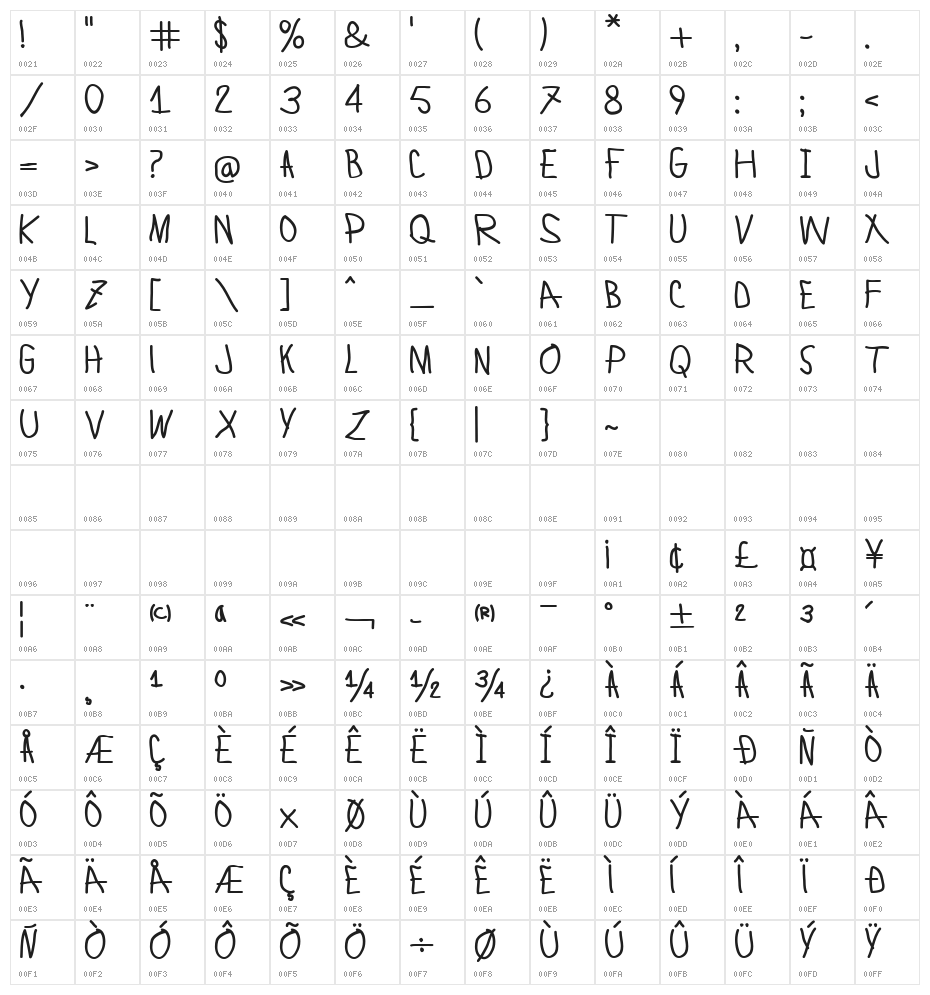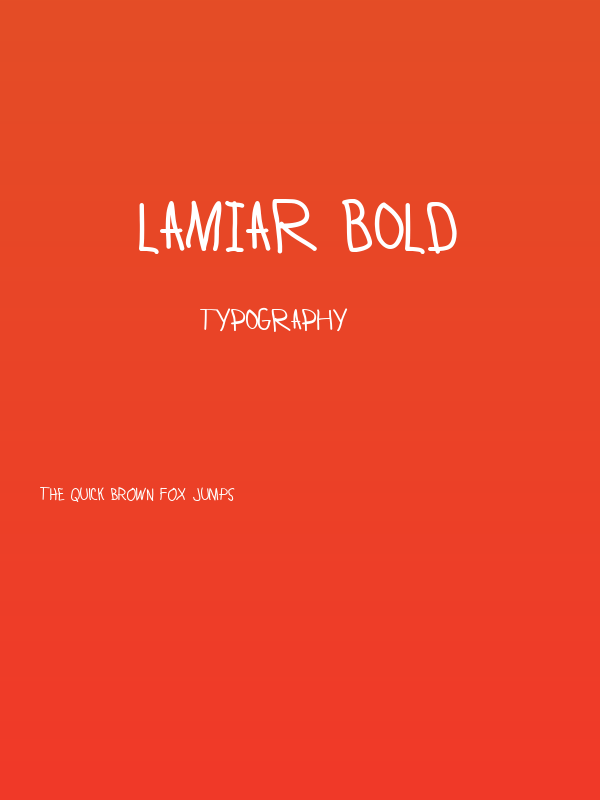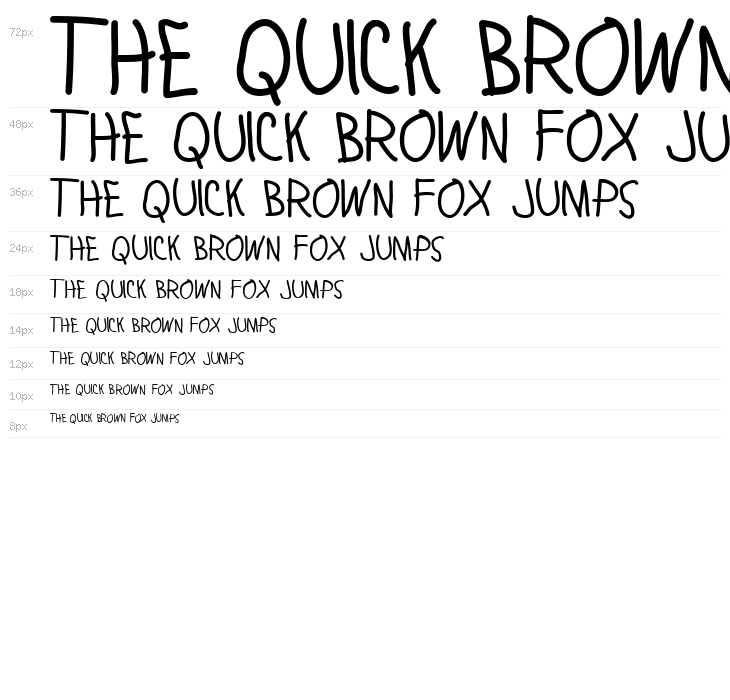
Lamiar Bold Font
| Stile generale | Playful, Casual |
| Caso d'uso | Headlines, Logos, Informal Text |
| Progetti proposti | Ideal for children's books, greeting cards, creative posters, and playful branding. |